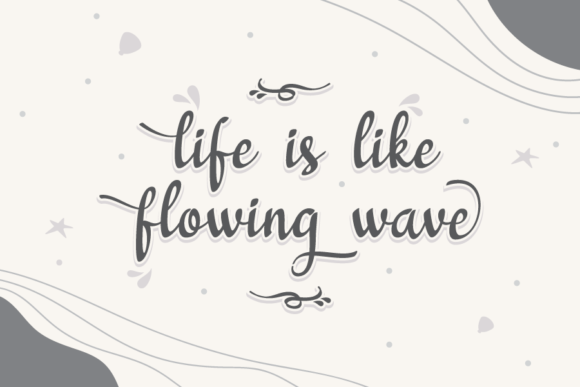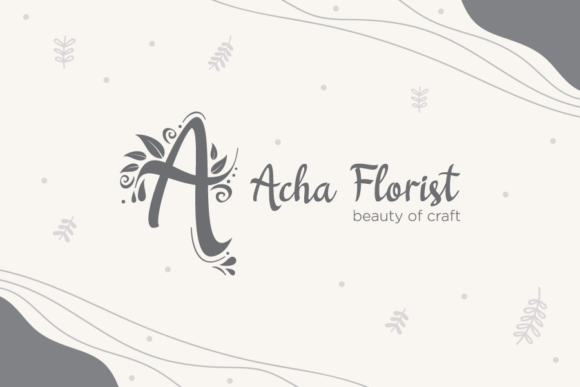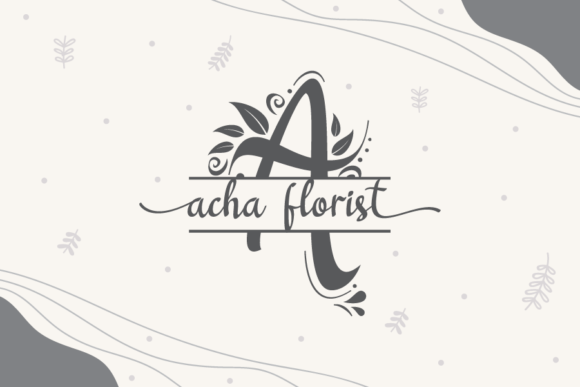
About Butterfiel Script Font
Butterfiel Script consists of two fonts designed to complement each other perfectly (script and decorative). Together or apart, these fonts are ideal for adding a chic and cheery touch to your crafts. This font is PUA encoded which means you can access all glyphs and swashes with ease!